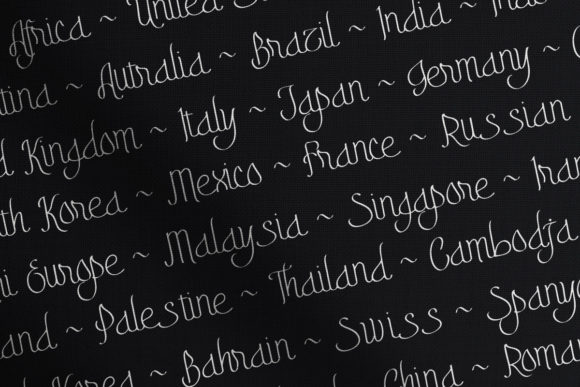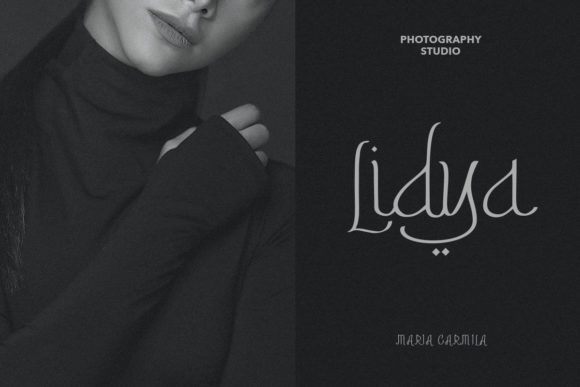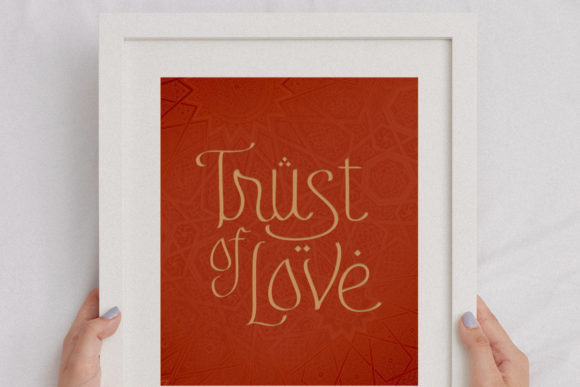
The Art of Cultural Expression: Unveiling the Arabian Fairs Font
As a designer, there’s nothing quite like the thrill of bringing a client’s vision to life. It’s a moment of pure creativity, where the possibilities are endless and the excitement is palpable. For me, that moment came when I was tasked with designing a logo for a Middle Eastern-inspired brand. I wanted to infuse the design with a sense of cultural authenticity, without sacrificing readability or versatility.
That’s when I stumbled upon the Arabian Fairs Font, a stunning light and minimal Fauxlang Arabic Font that perfectly captured the essence of Arabic calligraphy. With its elegant lines and subtle flair, this font effortlessly adds an Arabian touch to any design, making it a valuable addition to any designer’s toolkit.
Whether you’re working on a branding project, crafting wedding invitations, or creating seasonal materials for Ramadan and Islamic holidays, the Arabian Fairs Font is an excellent choice. Its unique blend of cultural flair and readability makes it an invaluable resource for designers looking to connect with diverse audiences.
- Language Support: Supports the Arabic script, as well as Latin and other languages, making it a versatile font for multilingual designs
- Unique Characteristics: Features intricate, traditional Arabic calligraphy and ornate designs, adding an exotic and luxurious feel to any design
Designer Review: Arabian Fairs Font
When I first laid eyes on the Arabian Fairs Font, I was immediately drawn to its elegant and exotic vibe. ✨ The intricate details and ornate flourishes are a perfect fit for any design project that requires a touch of Middle Eastern flair.
- Unique and distinctive design that sets it apart from other fonts
- Perfect for titles, headings, and other display text
- Good legibility, even at smaller font sizes
- Works well with a variety of color schemes and backgrounds
- Not suitable for large blocks of text, as it can be overwhelming
- May require additional styling to make it readable on certain devices
- Some users may find the font too ornate or distracting
Overall, I think the Arabian Fairs Font is a great choice for designers who want to add a touch of sophistication and elegance to their projects. While it may not be suitable for every design scenario, it’s definitely a valuable addition to any font collection. ⚠️ With some careful consideration and styling, this font can help take your designs to the next level.
Use the Arabian Fairs Font to add an exotic touch to your designs, especially for Middle Eastern or Arabic-themed projects.
Experiment with different font sizes, colors, and combinations to create unique and eye-catching effects.
Consider using the font in conjunction with other Arabic or Islamic-inspired graphics and elements to create a cohesive look.
The Arabian Fairs Font is ideal for:
Creating invitations, brochures, and other marketing materials for Middle Eastern events or businesses.
Designing Arabic-themed artwork, such as calligraphy or Islamic-inspired patterns.
Adding a touch of exotic elegance to wedding invitations, menus, or other special occasion materials.